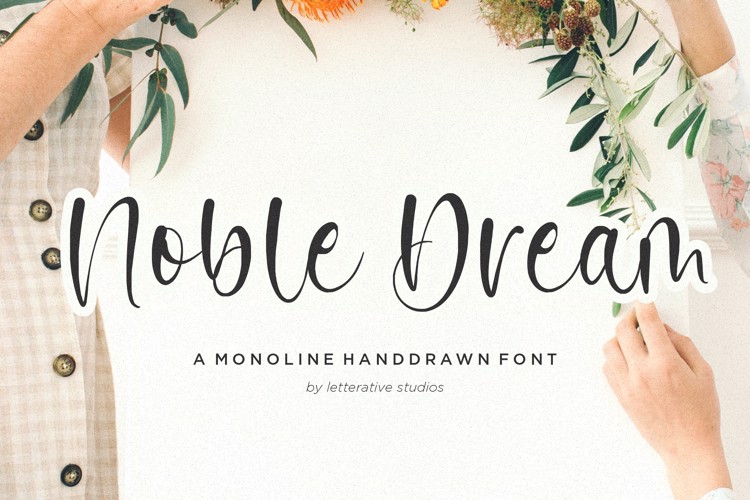
Noble Dream Font
Introducing by Letterative Studio : Noble Dream Font
Noble Dream is perfect for product packaging, branding project, megazine, social media, wedding, or just used to express words above the background!